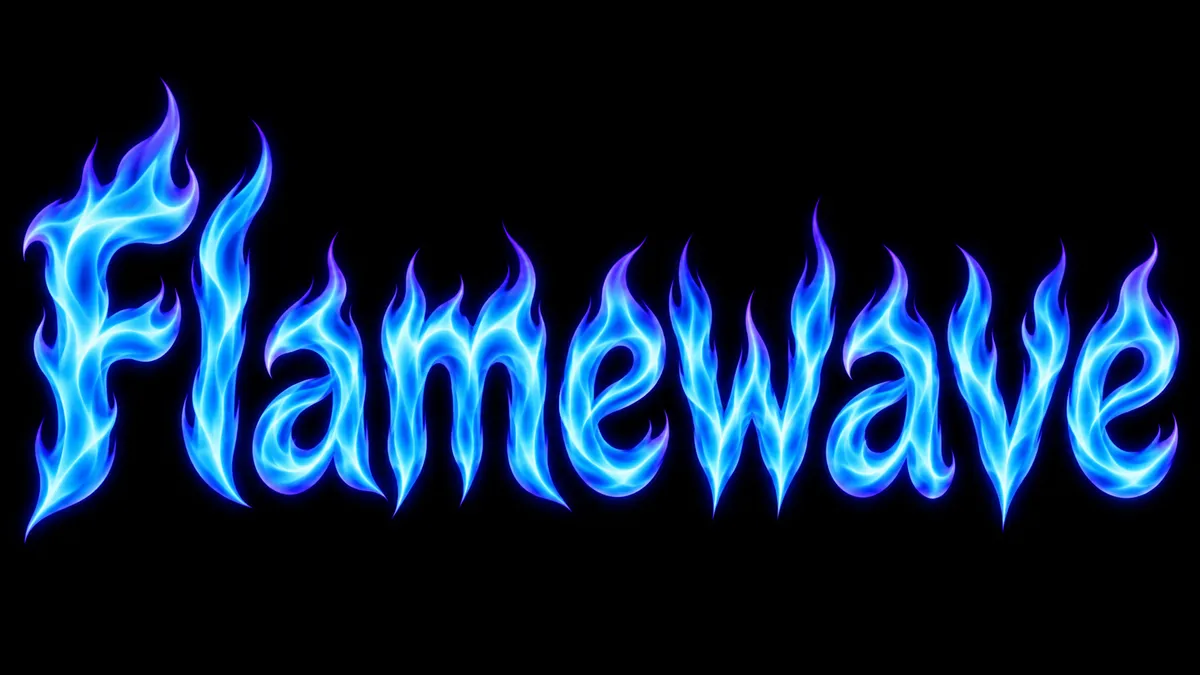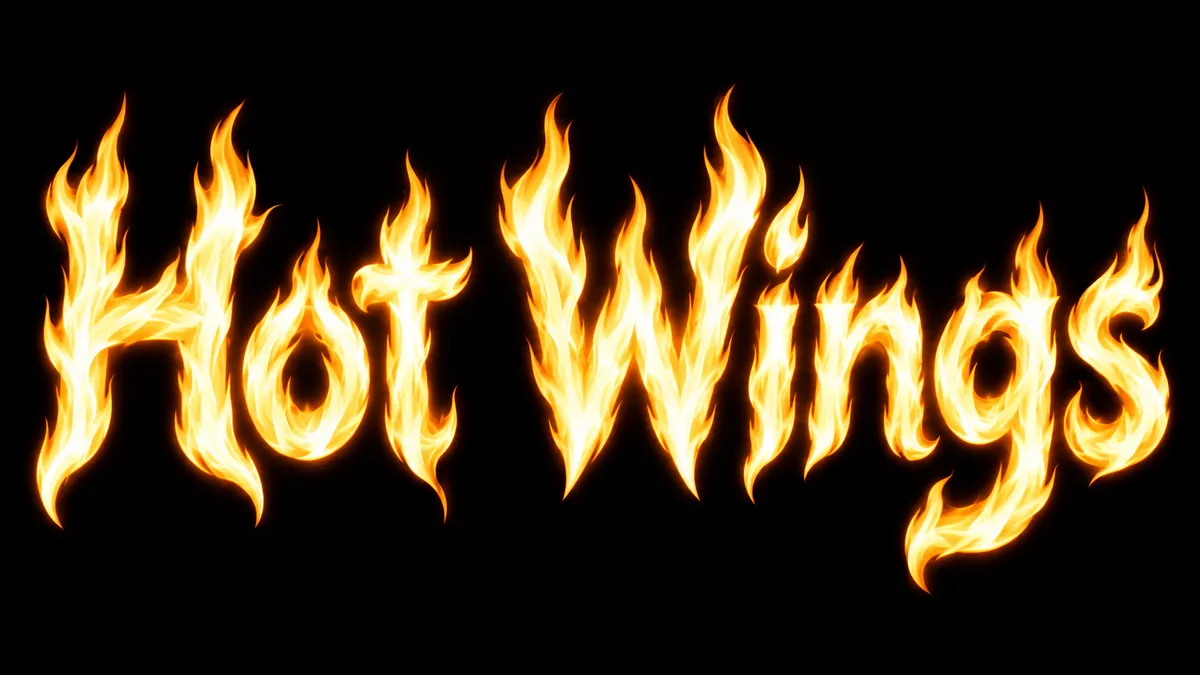
Pure, smokeless flame tongues shaped into your words. No embers, no soot, just clean fire.
Flame text is fire at its cleanest. Where a roaring fire effect piles on smoke, embers, and heat haze, the Fontique flame text generator draws each letter as pure flame tongues: smooth, licking shapes with sharp edges, bright cores, and nothing floating around them. The result is graphic and legible, closer to a flame logo than a burning scene.
That clarity is why designers reach for flame text on sports graphics, hot-food packaging, motorsport decals, and any layout where the lettering has to stay crisp at small sizes. Presets range from a single candle-like tongue on each stroke to dense clusters of blue or white flame.
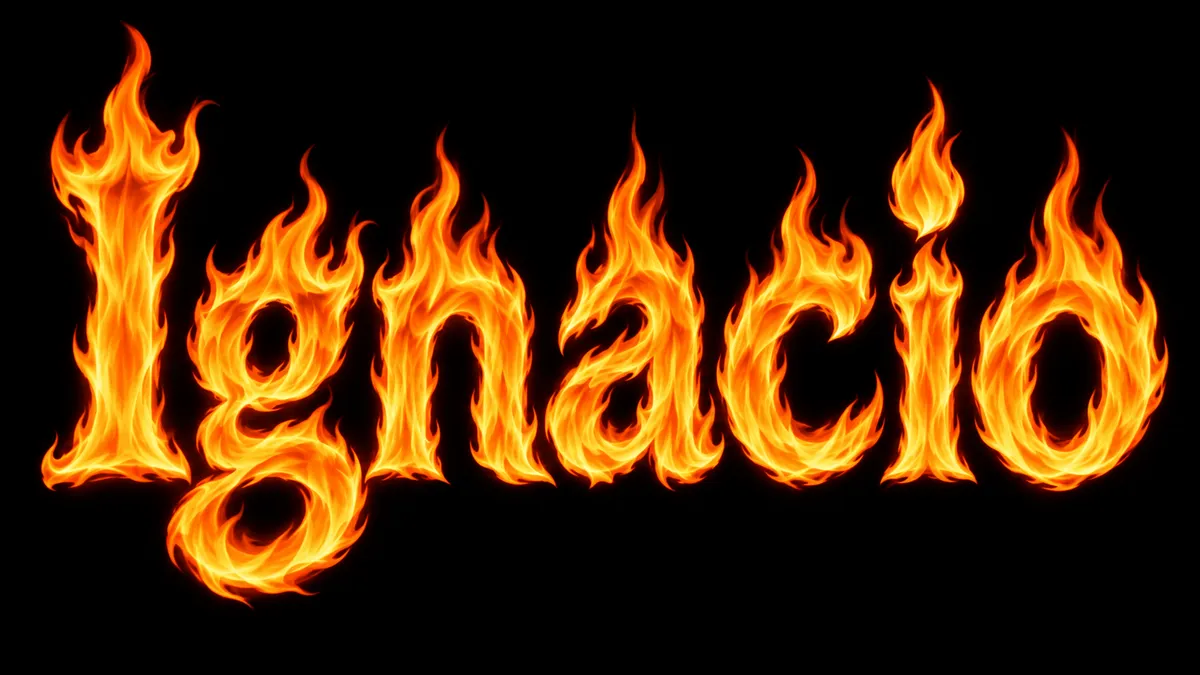
Each preset changes material, lighting and backdrop while keeping "Ignacio" perfectly legible.
Classic Flame
bright orange flame tongues with yellow cores, tall upward licks on every stroke, crisp graphic edges
Blue Flame
clean blue gas flames with cyan cores and violet fringes, cool and precise, no warm colors
White Hot
near-white flames with faint yellow edges, extremely bright and clean, minimal color, high contrast
Candle Lick
a single slender teardrop flame rising from the top of each letter, soft glow, calm and elegant
Flame Outline
thin flame strokes tracing only the outline of each letter, hollow centers, vector-like clarity
Flame text uses clean, smokeless flame tongues so the letters stay sharp and graphic. Fire text goes for a full roaring blaze with embers, smoke, and heat haze. Choose flame text when legibility and a logo-like look matter more than drama.
Bold, wide letterforms give the flame tongues room to form, so heavy display or blocky sans styles read best. Very thin or ornate scripts can lose definition because the flame shapes overwhelm the strokes. Keep phrases short for the cleanest result.